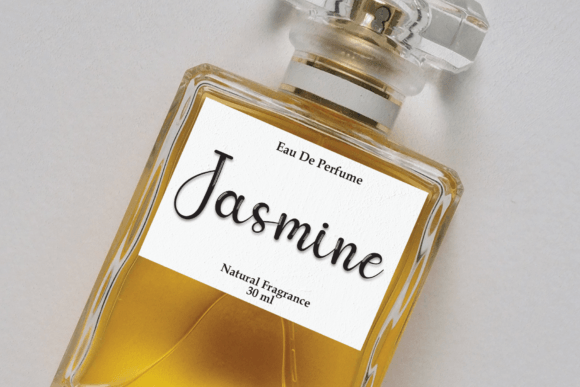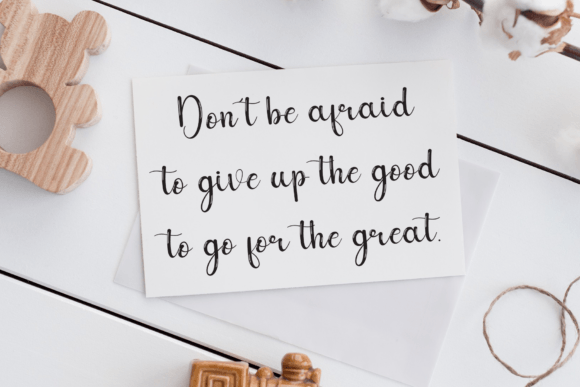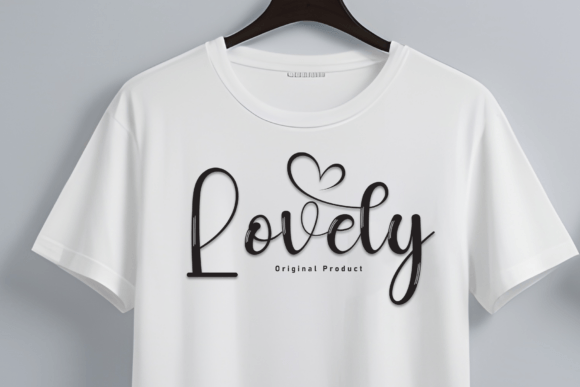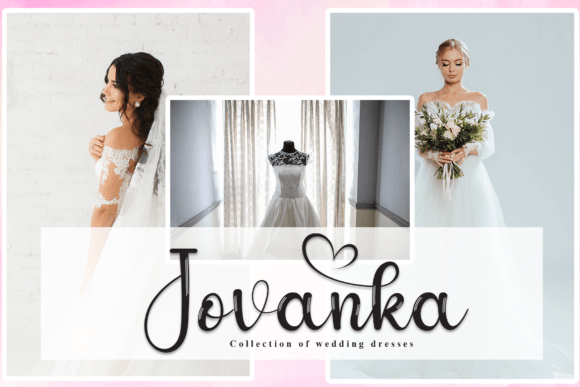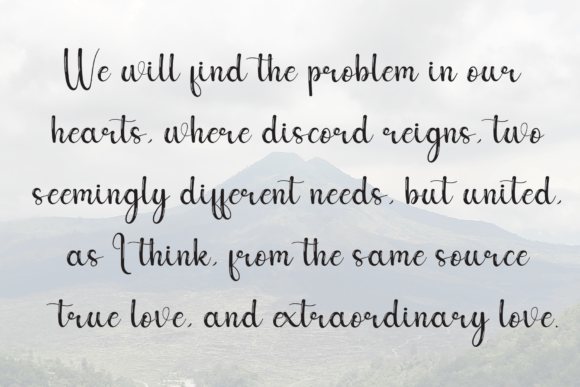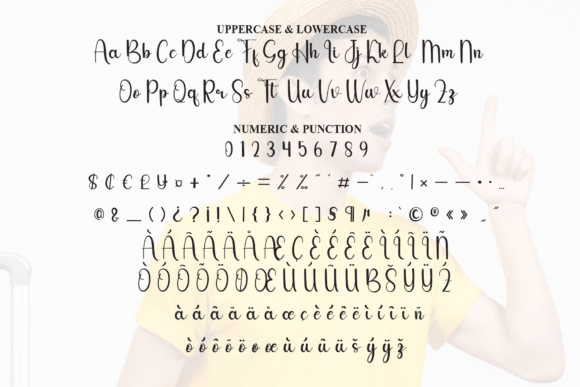
Introducing Bigboy Font: The Ultimate Handwritten Display Font for Whimsical Designs
Are you tired of using the same old fonts for your design projects? Look no further! Bigboy Font is here to revolutionize your creative endeavors with its charming and whimsical handwritten display font. Perfectly balanced between adorable and professional, this font is sure to add a touch of personality to any design.
The Perfect Blend of Character and Elegance
Bigboy Font exudes character and personality, making it an ideal choice for crafting enchanting wedding invitations, delightful cards, or infusing any design project with a sprinkling of joy. Its playful energy and friendly appeal make it an ingenious choice to give your creations a unique and eye-catching touch. Whether you’re a designer, crafter, or DIY enthusiast, this font is sure to become your new go-to.
What Makes Bigboy Font So Special?
- Unique and Whimsical Design: Bigboy Font boasts a one-of-a-kind, handwritten design that’s sure to make your creations stand out from the crowd.
- Perfectly Balanced: This font strikes the perfect balance between adorable and professional, making it suitable for a wide range of design projects.
- Playful Energy: Bigboy Font’s playful energy is infectious, adding a touch of joy and whimsy to any design.
- Easy to Read: Despite its whimsical nature, Bigboy Font remains easy to read, making it perfect for use in body text or headings.
Use Cases for Bigboy Font
Bigboy Font is incredibly versatile and can be used in a variety of design projects, including:
- Wedding Invitations: Add a touch of romance and whimsy to your wedding invitations with Bigboy Font.
- Greeting Cards: Create delightful greeting cards for birthdays, holidays, or any special occasion.
- DIY Projects: Infuse your DIY projects, such as scrapbooking, journaling, or crafting, with a personal touch.
- Branding and Packaging: Use Bigboy Font to add a unique and eye-catching touch to your brand’s packaging and marketing materials.
Tips for Using Bigboy Font Effectively
To get the most out of Bigboy Font, follow these tips:
- Pair with Neutral Backgrounds: Let Bigboy Font be the star of the show by pairing it with neutral backgrounds.
- Experiment with Colors: Have fun with different color combinations to add an extra layer of personality to your designs.
- Use it Sparingly: Use Bigboy Font sparingly to add emphasis and create visual interest.
In conclusion, Bigboy Font is a charming and whimsical handwritten display font that’s perfect for designers, crafters, and DIY enthusiasts looking to add a touch of personality to their creations. With its unique design, playful energy, and friendly appeal, this font is sure to become a staple in your design toolkit. So why wait? Get creative with Bigboy Font today and bring a little joy and whimsy to your designs!